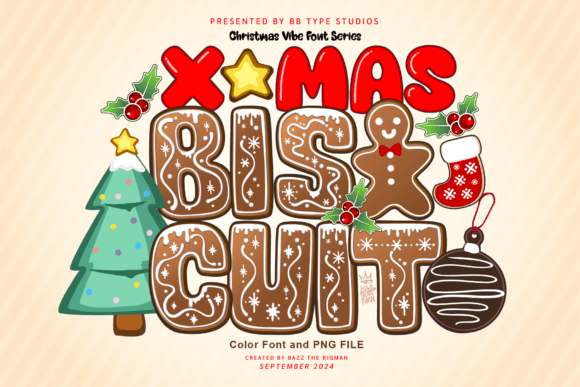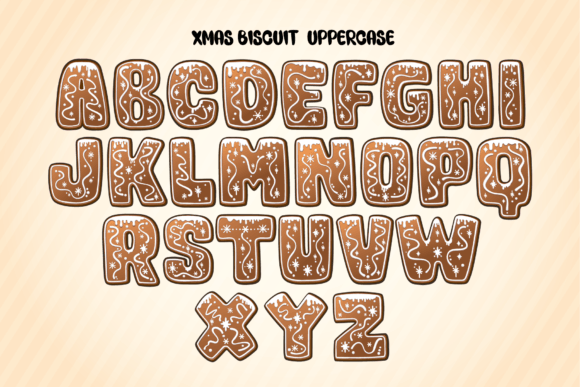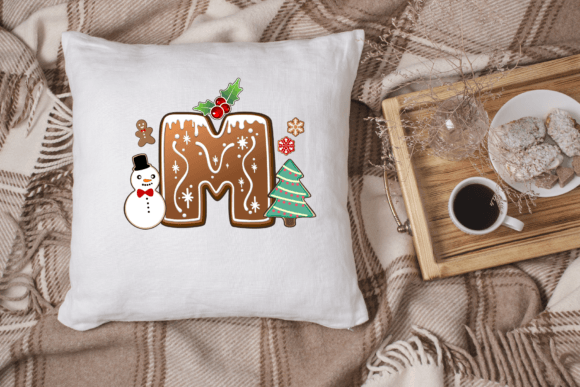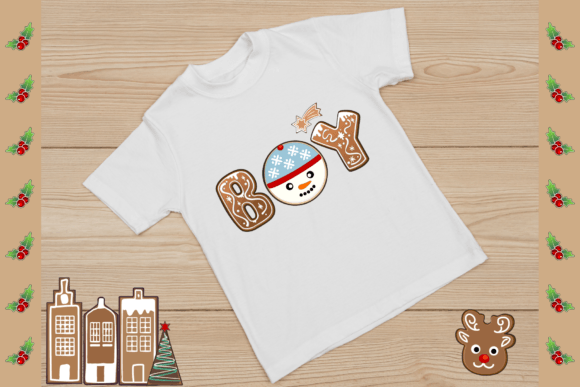
Xmas Biscuit Font
Experience the warmth of the holiday season with Xmas Biscuit, a font style imbued with the golden brown hue of freshly baked gingerbread. This typographical delight will magically embroider Christmas charm onto your creative projects ranging from stylish shirts and handmade crafts to festive cards. Amp up the charm factor of your Christmas-inspired design efforts with Xmas Biscuit, and watch as it effortlessly transforms them into captivating visual treats.